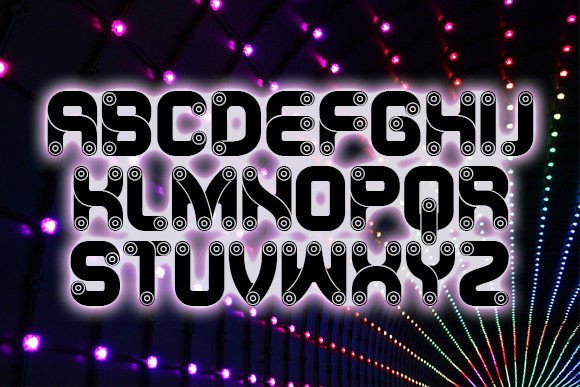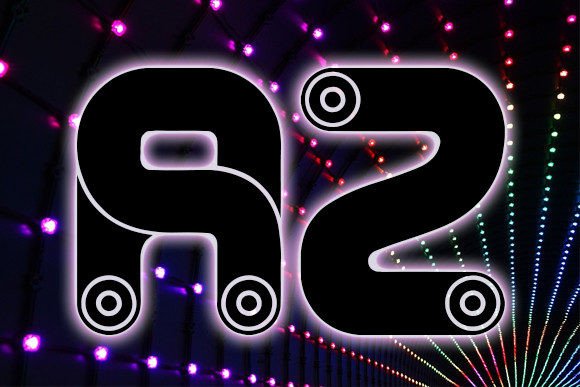
Canal Font: Elevate Your Designs with a Stylish and Versatile Typeface
Are you a designer or crafter looking for a font that can add a touch of elegance and sophistication to your projects? Look no further than Canal Font, a stylish and versatile typeface that is perfect for a wide range of design applications. In this article, we’ll take a closer look at Canal Font, its features, and how you can use it to elevate your designs.
What is Canal Font?
Canal Font is a modern font family that is designed to be both stylish and functional. Its sleek lines, elegant curves, and refined aesthetic make it perfect for use on a variety of design projects, from posters and postcards to flyers and more. Whether you’re working on a commercial project or a personal craft, Canal Font is a great choice for adding a touch of sophistication and style.
Key Features of Canal Font
So what makes Canal Font so special? Here are just a few of its key features:
- Stylish and Elegant Design: Canal Font has a sleek and refined design that is perfect for adding a touch of elegance to your projects.
- Versatile and Flexible: Canal Font is a versatile typeface that can be used on a wide range of design projects, from posters and postcards to flyers and more.
- Easy to Read: Despite its stylish design, Canal Font is also easy to read, making it perfect for use on projects where you need to communicate information clearly.
- Scalable: Canal Font is designed to be scalable, so you can use it on projects of all sizes, from small business cards to large billboards.
How to Use Canal Font in Your Designs
Now that we’ve covered the features of Canal Font, let’s take a look at how you can use it in your designs. Here are a few ideas to get you started:
- Posters: Canal Font is perfect for use on posters, where its stylish design and easy readability make it a great choice for headlines and body copy.
- Postcards: Add a touch of elegance to your postcards with Canal Font, which is perfect for use on both the front and back of your card.
- Flyers: Canal Font is also a great choice for flyers, where its versatility and flexibility make it perfect for use on a wide range of topics and themes.
- Branding and Packaging: Use Canal Font to add a touch of sophistication to your branding and packaging, where its stylish design and easy readability make it a great choice for labels, logos, and more.
Tips for Getting the Most Out of Canal Font
Here are a few tips for getting the most out of Canal Font in your designs:
- Experiment with Different Sizes and Styles: Don’t be afraid to experiment with different sizes and styles of Canal Font to find the look that works best for your project.
- Pair it with Other Fonts: Canal Font pairs well with a wide range of other fonts, so don’t be afraid to get creative and try out different combinations.
- Use it Consistently: For maximum impact, use Canal Font consistently throughout your project to create a cohesive and polished look.
In conclusion, Canal Font is a stylish and versatile typeface that is perfect for a wide range of design applications. Its elegant design, easy readability, and scalability make it a great choice for designers and crafters looking to add a touch of sophistication to their projects. Whether you’re working on a commercial project or a personal craft, Canal Font is a great choice for elevating your designs and taking them to the next level.